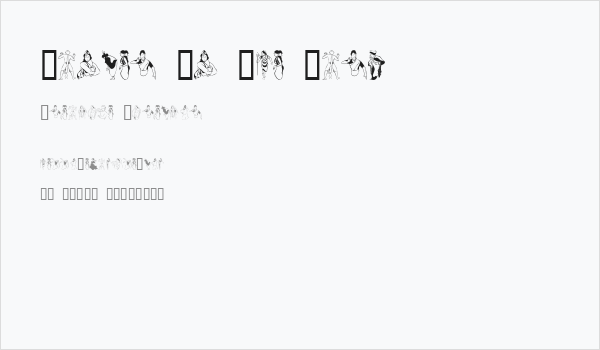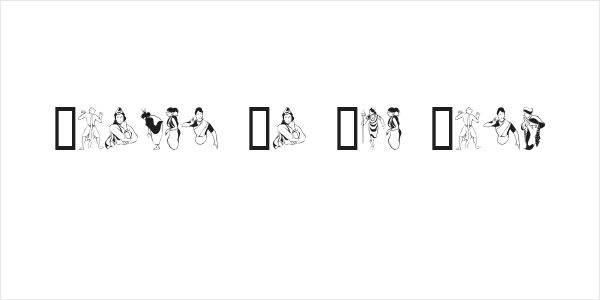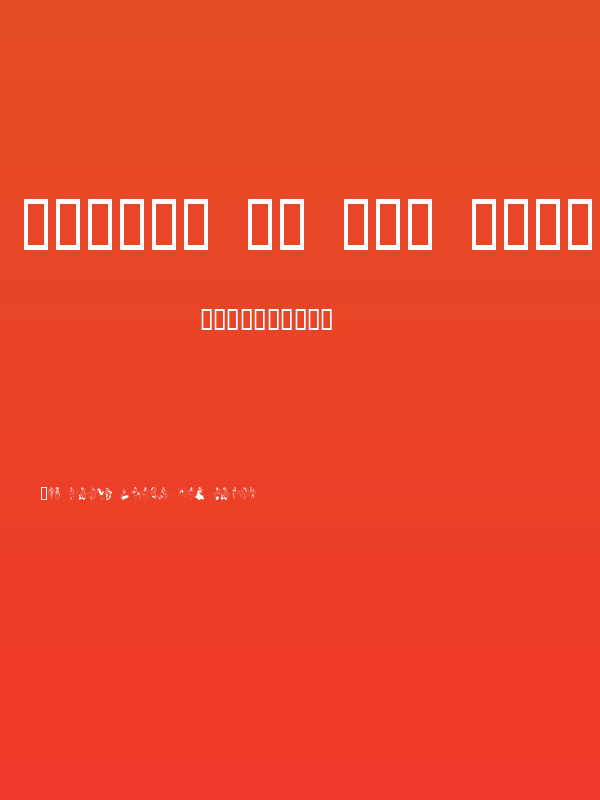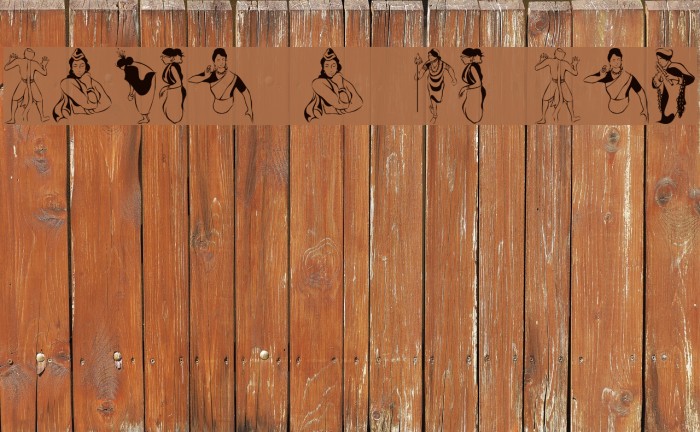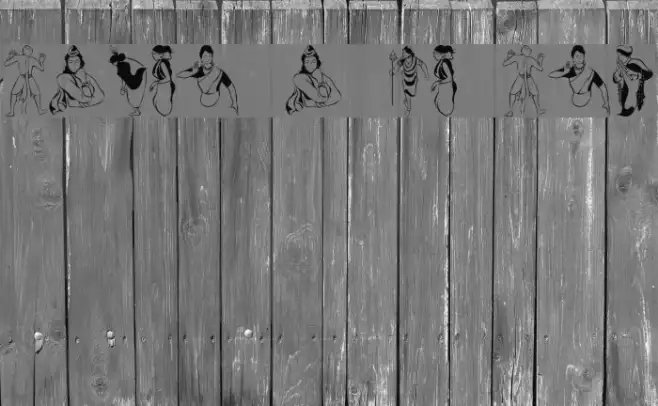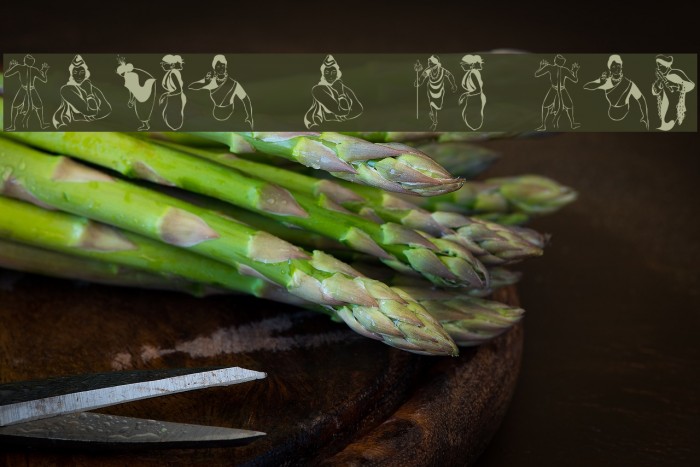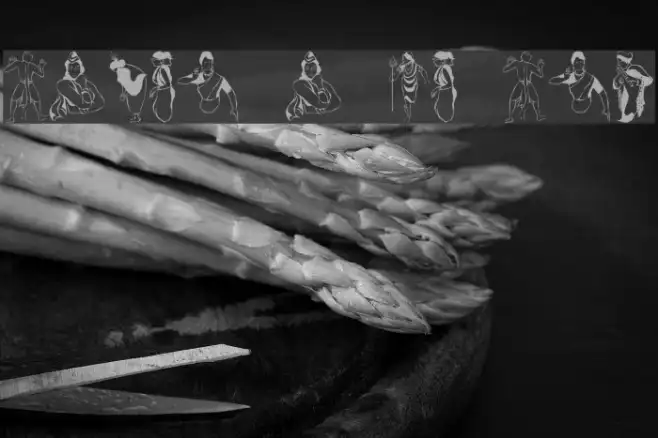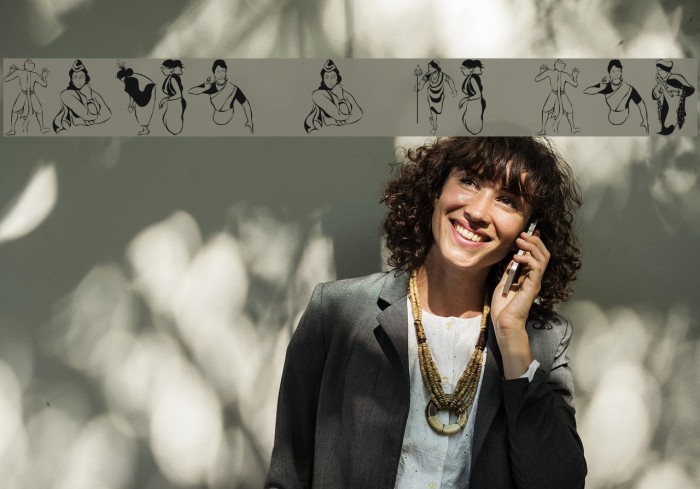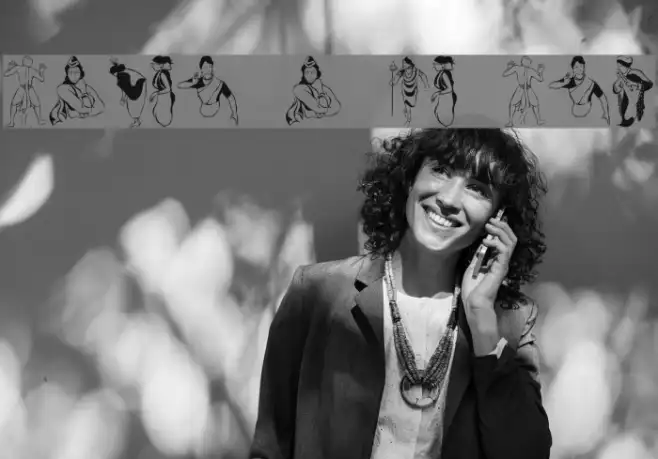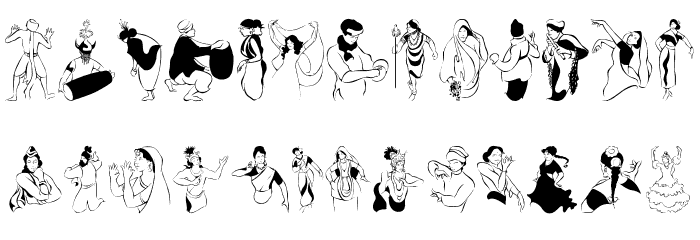
Dancer In The Dark Font
A highly decorative and illustrative font where each character is represented by a unique line drawing of a dancer in various expressive poses, blending art and typography. The figures are fluid, dynamic, and detailed, emphasizing movement and emotion.
| Overall Style | Decorative, Artistic, Expressive |
| Use Case | Logos, Headlines, Posters, Artistic titles |
| Proposed Projects | Posters, event invitations, branding for dance studios, artistic projects, album covers, cultural festival materials. |